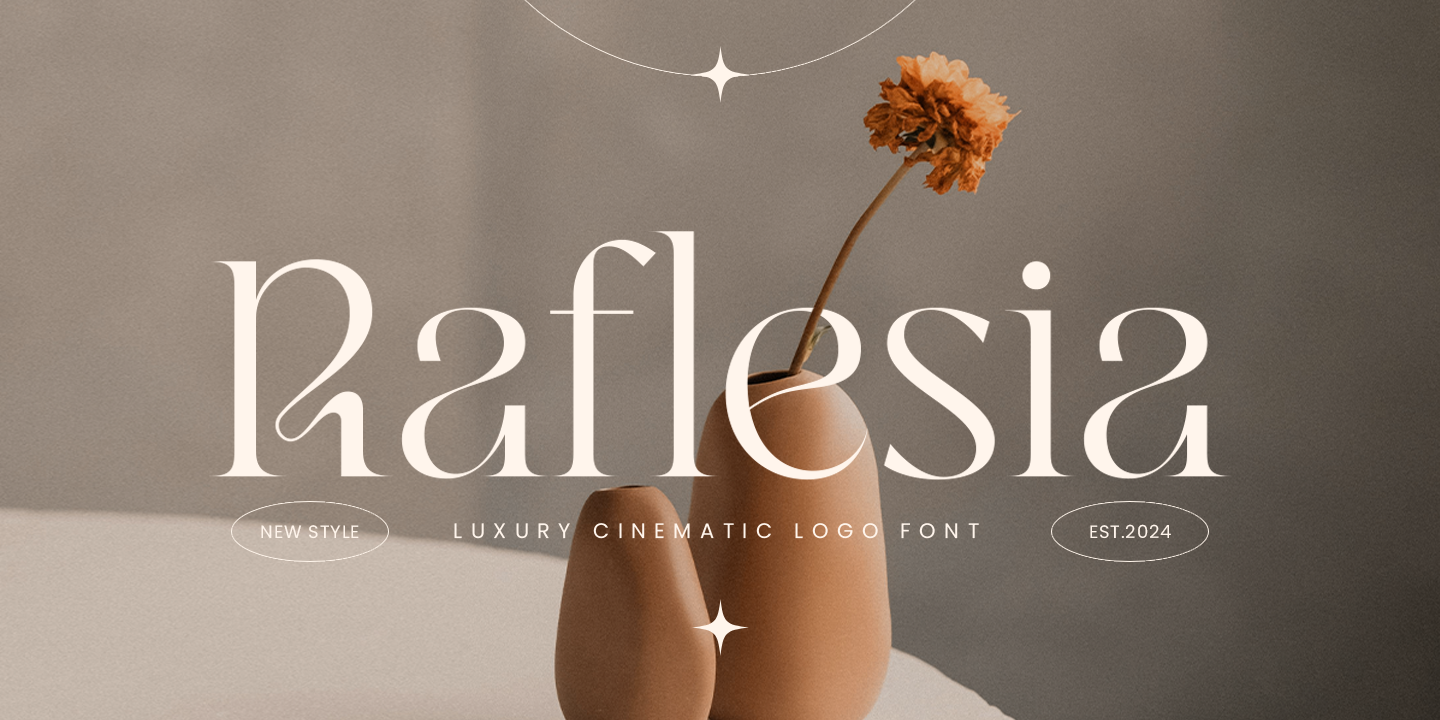
Raflesia SS Font is ideal for luxury branding, high-end editorial covers, magazine mastheads, elegant invitations, floral packaging, and boutique signage. Its graceful serif forms combined with soft contrast bring a delicate, refined aesthetic that suits upscale and art-focused projects.
What makes Raflesia SS Font Free Download so exciting is its harmonious blend of botanical curves and classic serif elegance. Inspired by the majestic raflesia flower – famed for its dramatic scale and unique beauty – this font channels organic charm while retaining clean readability. Perfect for conveying sophistication with a hint of natural inspiration.
The Raflesia SS font family typically includes Raflesia SS Regular and Raflesia SS Italic, providing two cohesive styles for headline and body text harmony. Additionally, it often offers alternates or ligatures that mimic petal-like flourishes, enhancing design versatility.
Ideal for crafting luxury wedding suites, upscale spa branding, artisan product labels, or graceful lifestyle blogs, Raflesia SS Font Free Download adds refined character and botanical elegance. Just remember—it’s free to test, but for any public or commercial usage, you’ll need a valid license.
Whether you’re designing a delicate editorial layout or a high-end packaging suite, Raflesia SS Font Free Download brings timeless sophistication with a natural twist. Give your project that elegant flourish while staying legible and stylish.